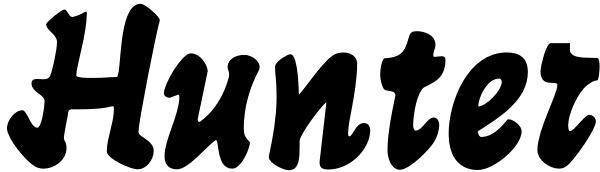
Hunter
Many of the fonts available from Canada Type are revivals of historic brush scripts (such as Bruschetta, Coffee Script, Puma, Tiger Script). Hunter is a deserved addition to the collection. Imre Reiner's Mustang design from 1956 now enters the...